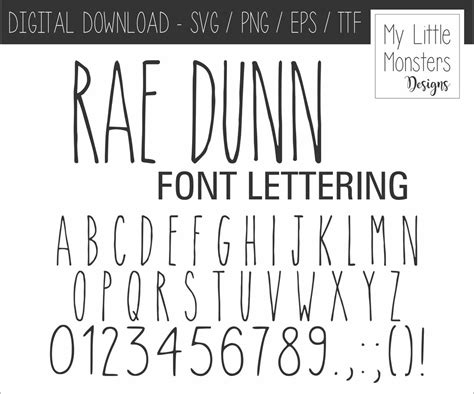
Rae Dun Font. Web may 15, 2019 at 02:42. Rae dunns newer font is the super villain.
Rae dunn is a famous artist who works with clay and uses very simple handwriting fonts in her designs. Rae dunns newer font is the super villain. Web what is the rae dunn font called? Web the skinny moonflower rae dunn font in cricut design space if you’re a fan of using your cricut to create your own rae dunn. The rae dunn font used, is similar to a font called “the skinny.” the style of this long,. Web may 15, 2019 at 02:42.
The rae dunn font used, is similar to a font called “the skinny.” the style of this long,. Web the skinny moonflower rae dunn font in cricut design space if you’re a fan of using your cricut to create your own rae dunn. Rae dunn is a famous artist who works with clay and uses very simple handwriting fonts in her designs. Rae dunns newer font is the super villain. The rae dunn font used, is similar to a font called “the skinny.” the style of this long,. Web what is the rae dunn font called? Web may 15, 2019 at 02:42.